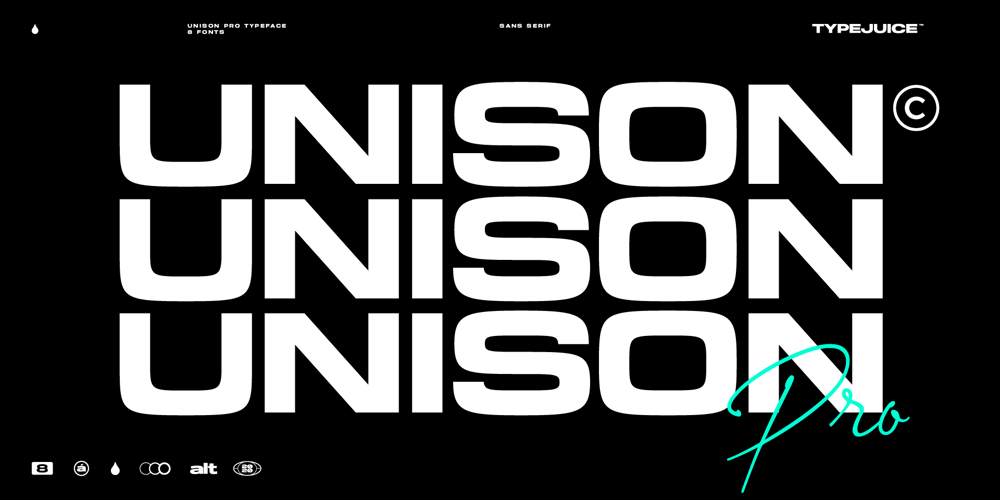
Unison Pro Font Family was designed by Matthew Messiha and published by Type Juice. Unison Pro contains 8 styles and family package options. Unison Pro is an extended sans serif typeface. The family includes 8 fonts with stylised caps and a rounded version for each. Unison has bold and light minimal extended glyphs making it great for headers, logos, posters, titles and much more. The stylised caps included allow users creative control for creating unique typography. 8 Fonts Total 4 Font Styles Stylised Caps Multilingual Over 1700 Glyphs